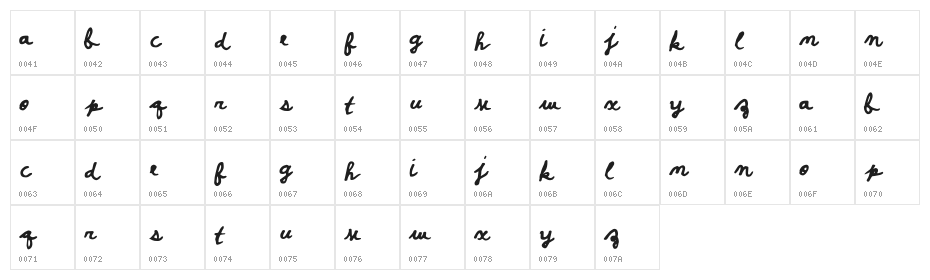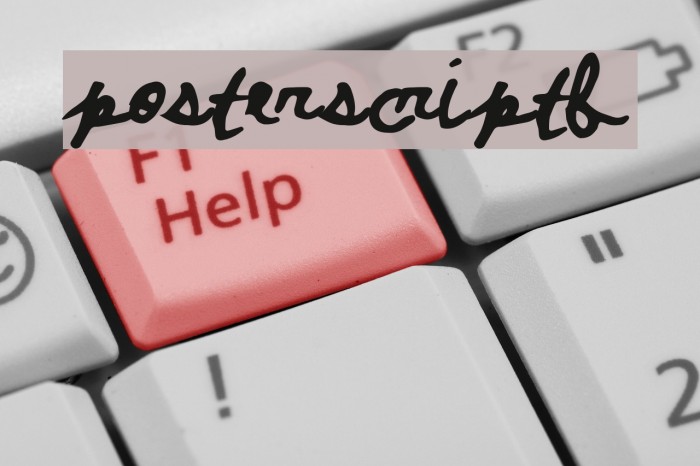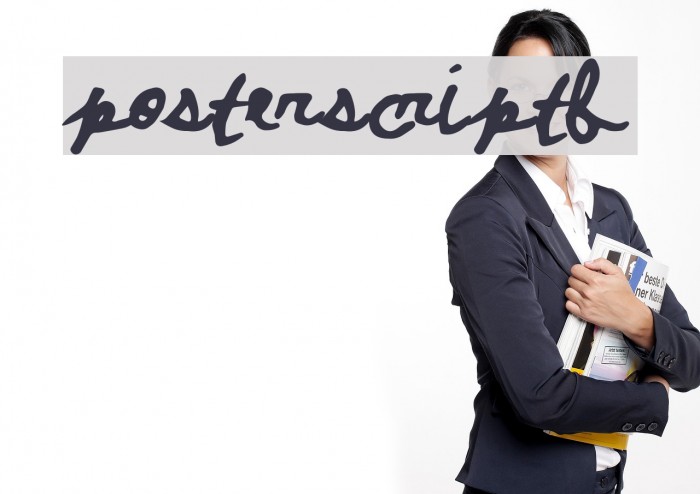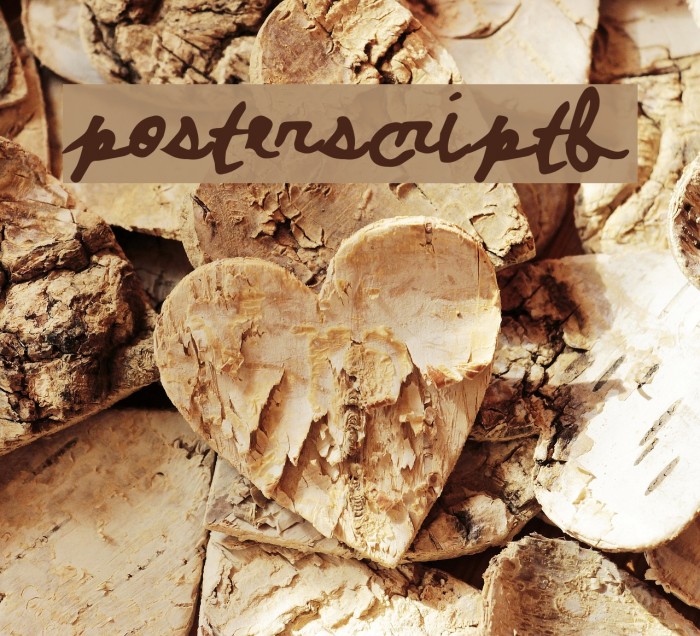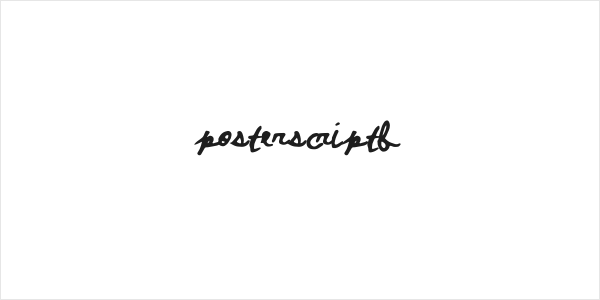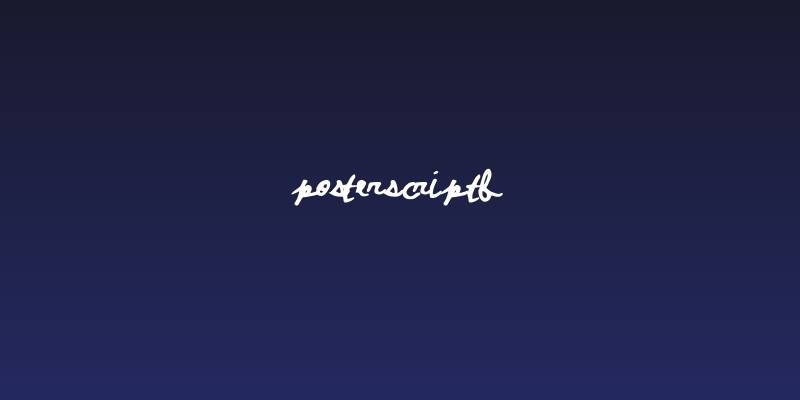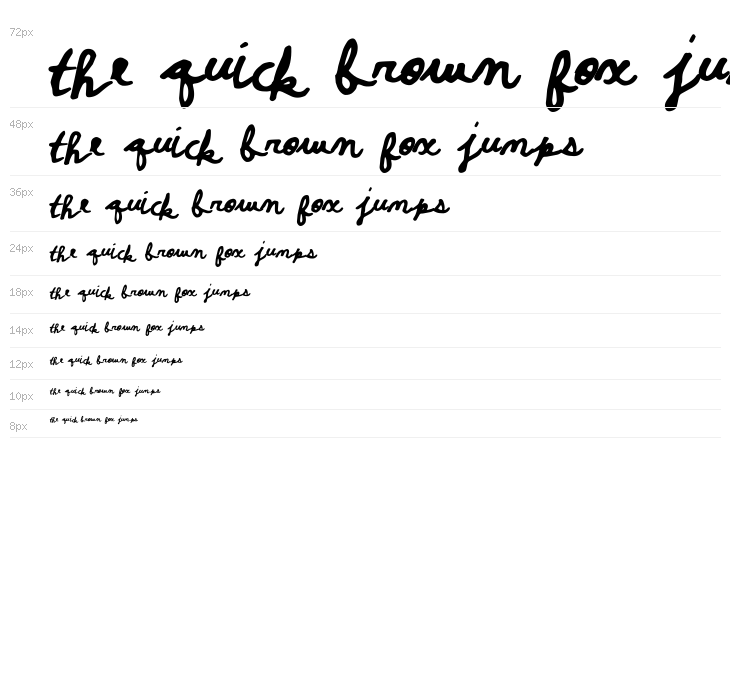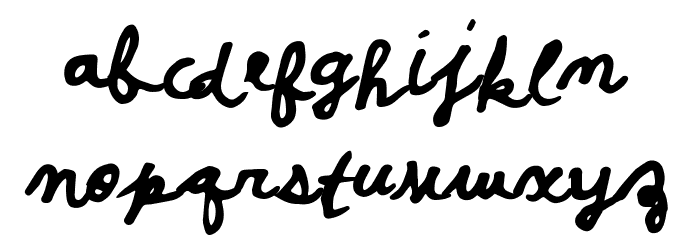
PosterScriptB Font
PosterScriptB Description
This font features a bold, cursive style with a handwritten appearance. The letters are connected, creating a fluid and continuous flow that mimics natural handwriting. The strokes are thick and consistent, giving the font a strong presence on the page. The overall look is casual yet elegant, making it suitable for projects that require a personal touch. The characters are slightly slanted, enhancing the script-like quality. The font maintains a consistent baseline, with ascenders and descenders that add to its dynamic appearance. The spacing between characters is tight, contributing to the cohesive look of the text.
| Overall Style | Casual, Elegant |
| Proposed Projects | Ideal for invitations, greeting cards, personal branding, and creative projects requiring a handwritten touch. |